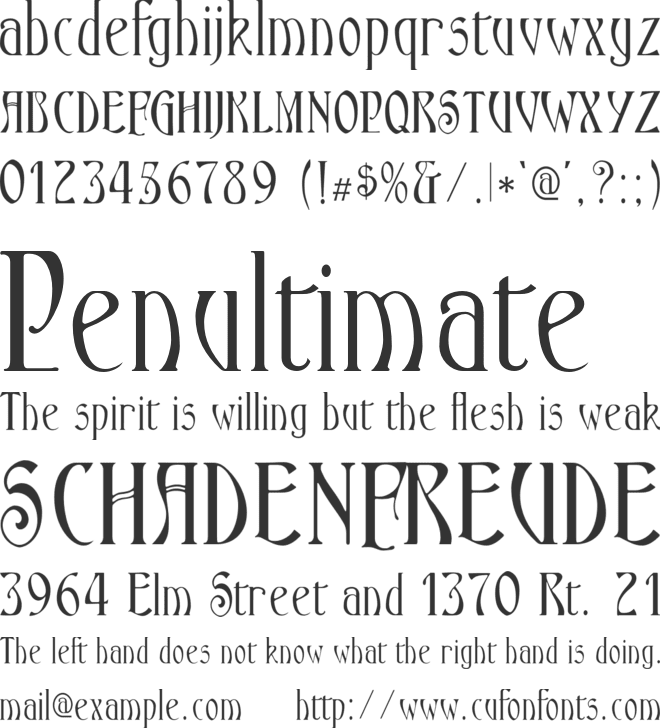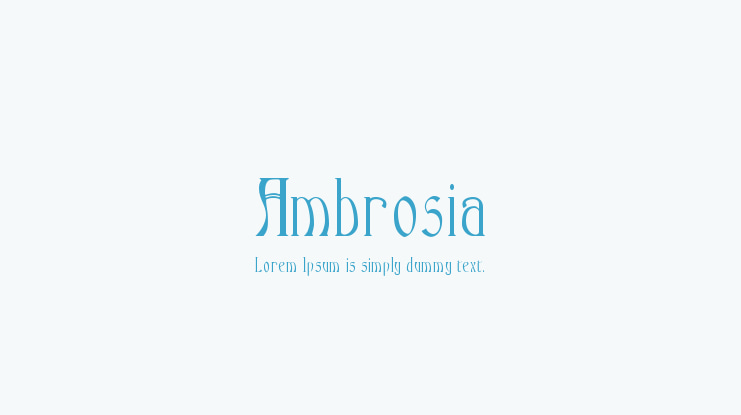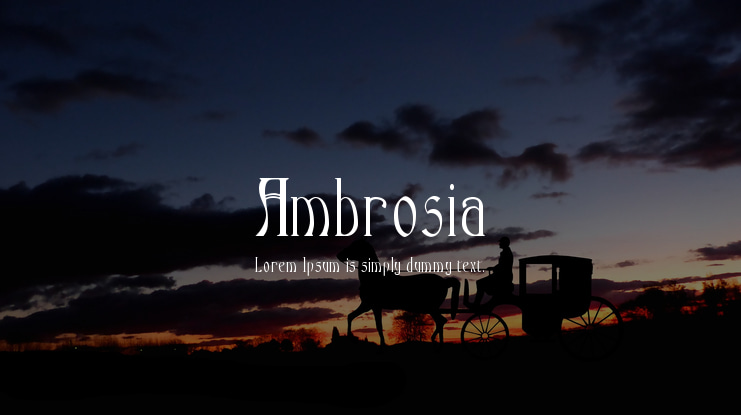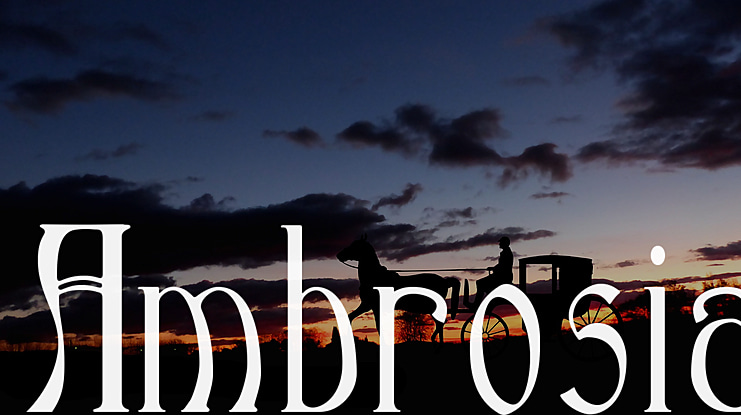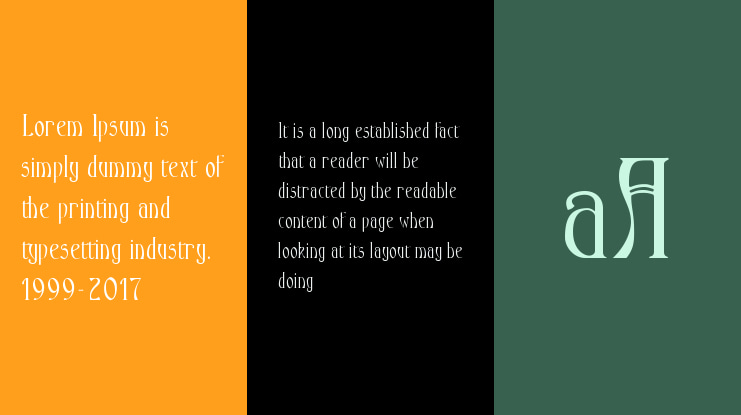
Ambrosia is an old Art Nouveau font which I found in a Dover type catalog. I cannot attest to its provenance beyond that. The original display page consisted of the uppercase letters, the digits and a few symbols. I have added a matching lower case, small caps, accented glyphs and a some more symbols.